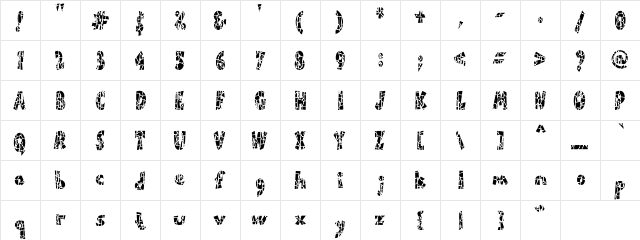
PC Crackled Regular
Design Context for PC Crackled Typeface
PC Crackled is a composed and adaptable typeface that performs quietly and consistently across a wide range of design contexts.